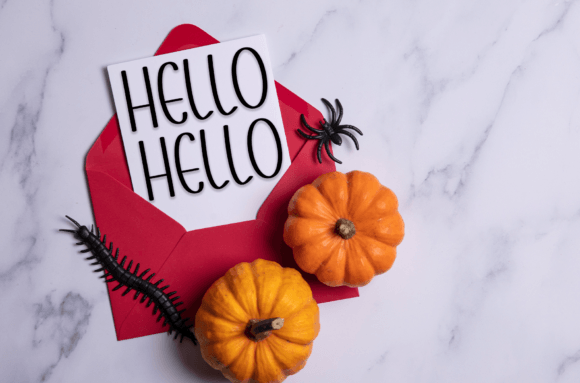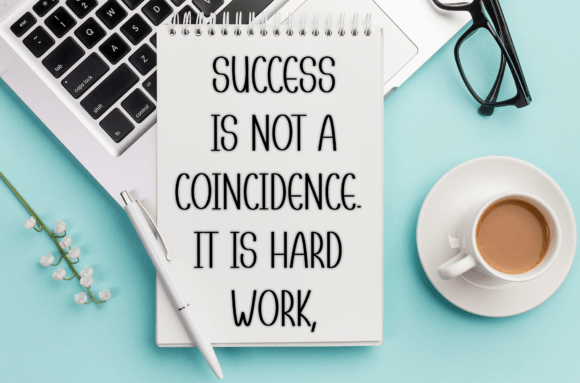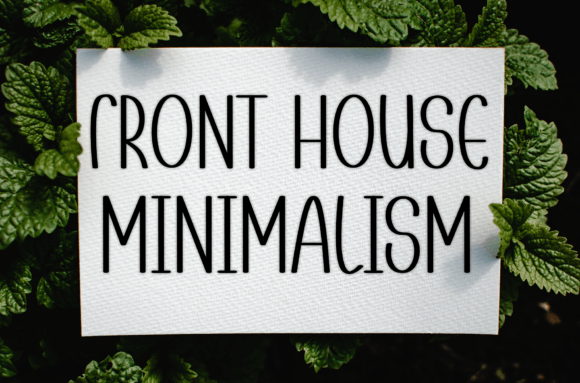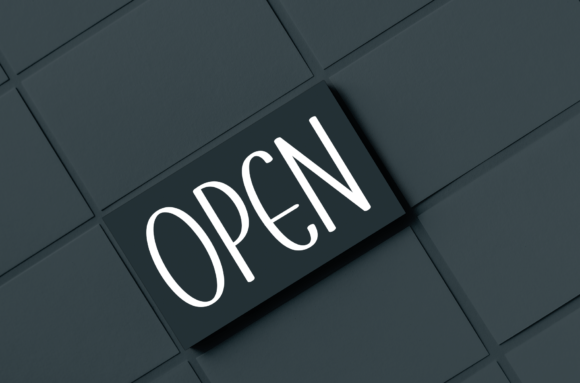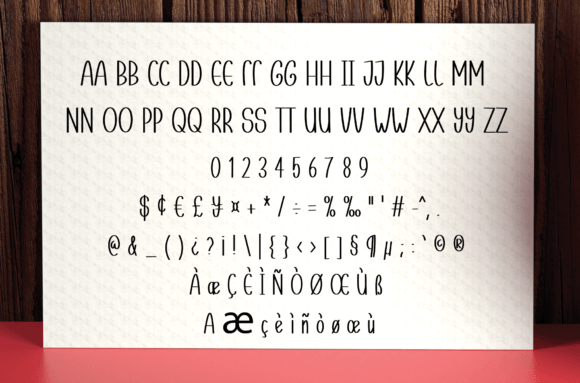
Introducing Handhould Font: The Ultimate Playful Handwritten Font for Designers
Are you tired of using the same old fonts in your designs? Look no further! Handhould Font is here to revolutionize your creative projects with its cool, simple, and playful handwritten style. This incredibly versatile font is perfect for designers and crafters who want to elevate their designs to the highest levels.
What Makes Handhould Font So Special?
Handhould Font is a unique and refreshing addition to any design project. Its playful and handwritten style gives it a personal touch that will make your designs stand out from the crowd. The font’s simplicity and elegance make it easy to read and versatile enough to be used in a wide range of designs, from fun and playful to elegant and sophisticated.
Endless Design Possibilities with Handhould Font
One of the best things about Handhould Font is its incredible versatility. It can be used in a wide pool of designs, including:
- Logos and branding: Create a unique and memorable logo for your business or personal brand.
- Social media graphics: Add a personal touch to your social media posts and stories.
- Invitations and cards: Create beautiful and playful invitations and cards for special occasions.
- Packaging design: Elevate your product packaging with a custom and eye-catching font.
- Web design: Use Handhould Font to create a unique and engaging website that reflects your brand’s personality.
Why Designers and Crafters Love Handhould Font
Designers and crafters love Handhould Font for many reasons. Here are just a few:
- Easy to read: Despite its playful style, Handhould Font is incredibly easy to read, making it perfect for body text and headlines.
- Highly versatile: Handhould Font can be used in a wide range of designs, from fun and playful to elegant and sophisticated.
- Unique and refreshing: Handhould Font is a breath of fresh air in a world of overused fonts.
- Perfect for creative projects: Whether you’re working on a personal or professional project, Handhould Font is the perfect choice.
How to Use Handhould Font in Your Designs
Using Handhould Font in your designs is easy. Here are a few tips to get you started:
- Pair it with other fonts: Experiment with pairing Handhould Font with other fonts to create a unique and eye-catching combination.
- Use it for headlines and titles: Handhould Font is perfect for headlines and titles, adding a playful and personal touch to your designs.
- Experiment with colors: Try out different colors and color combinations to see what works best with Handhould Font.
In conclusion, Handhould Font is a cool, simple, and playful handwritten font that is perfect for designers and crafters who want to elevate their designs to the highest levels. Its incredible versatility, ease of use, and unique style make it a must-have font for any creative project. So why wait? Add Handhould Font to your favorite creative ideas and notice how it makes them come alive!